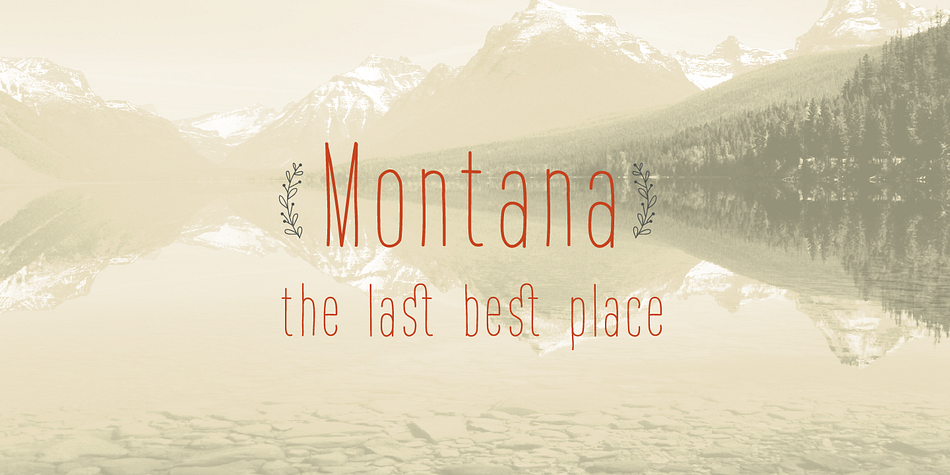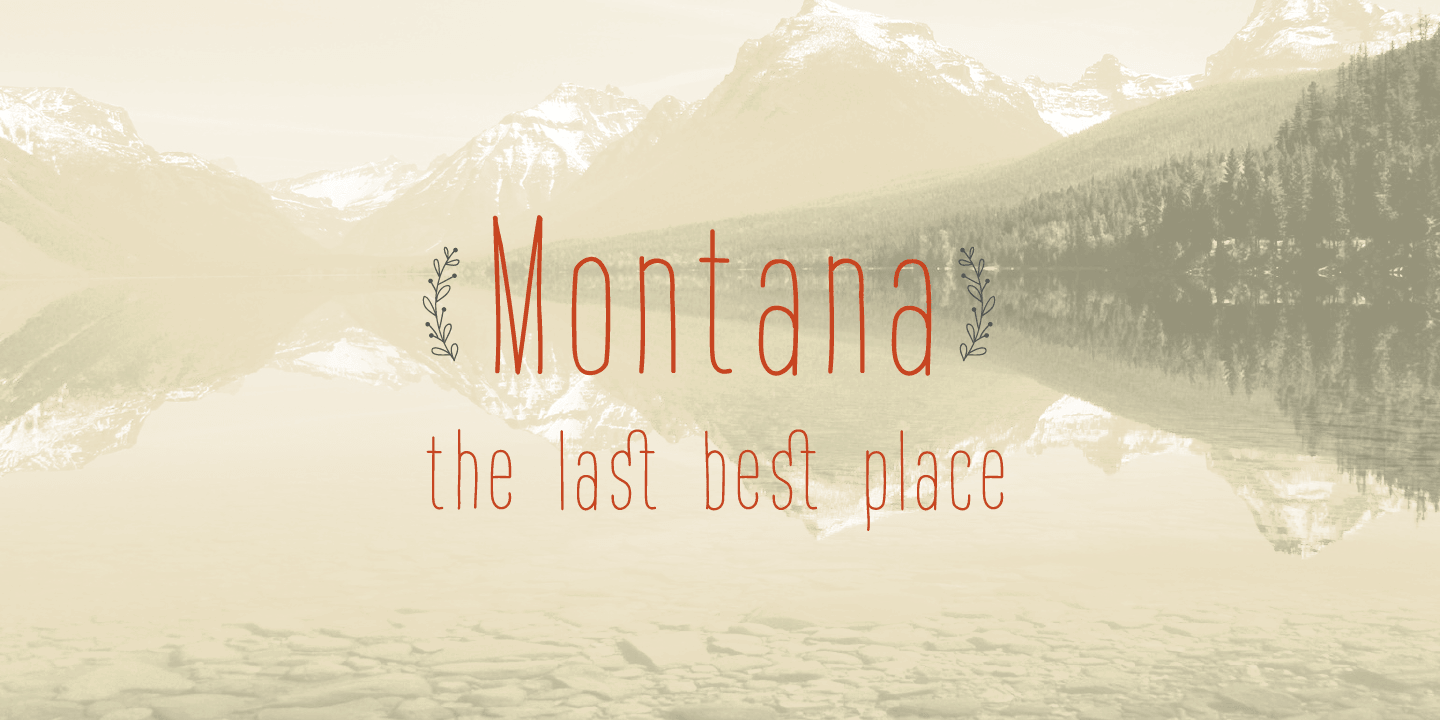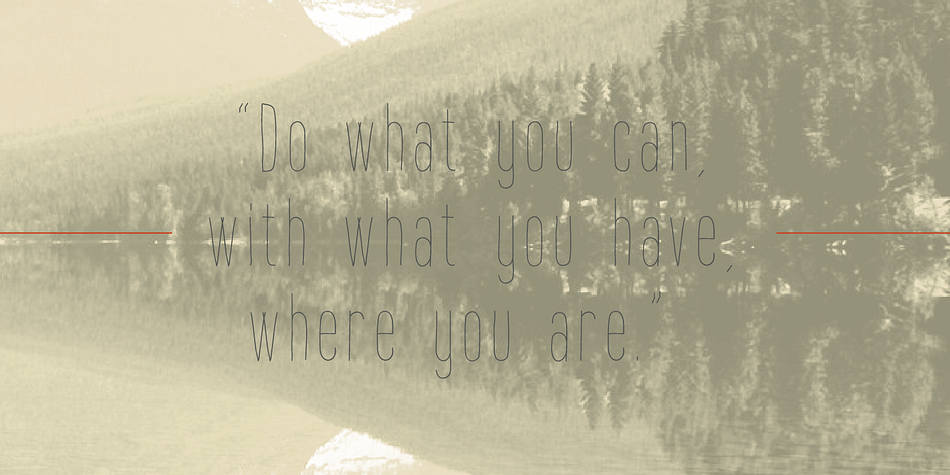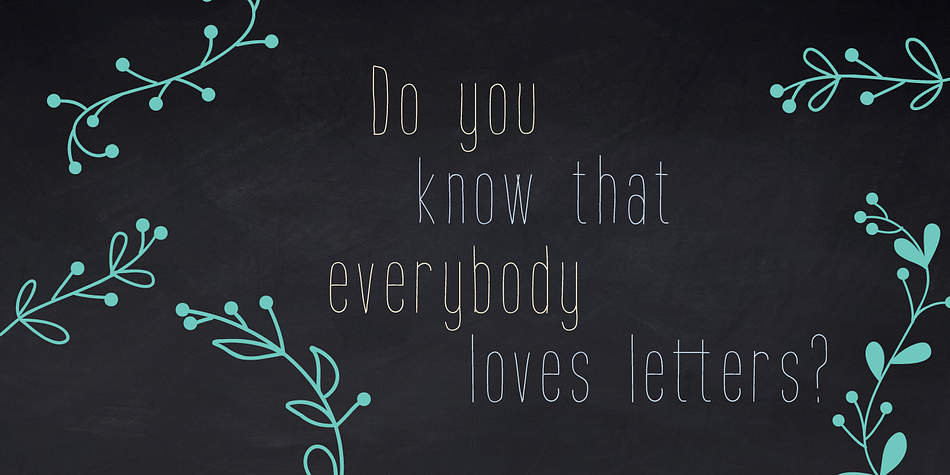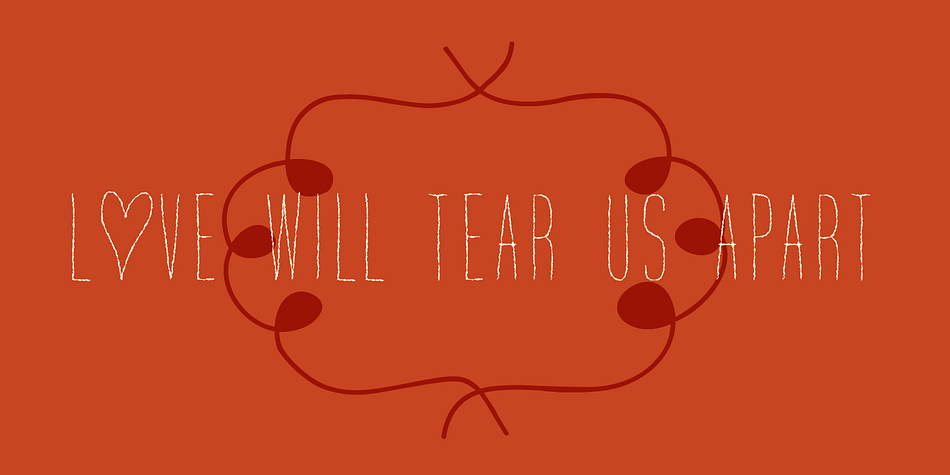
Montana is a dingbat and hand drawn font family. This typeface has seven styles and was published by Resistenza.es.
Montana in a new handwritten font with four weight and 2 kinds of icons set.
This handwritten font is very readable in small sizes, includes also some swashes and few alternates.